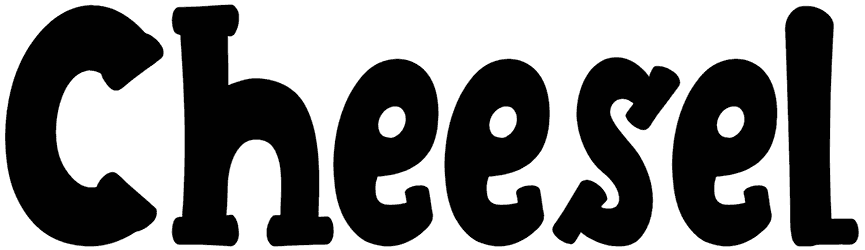
Cheesel Font
Let’s level up your design with the happy and comical face of today’s gift, named Cheesel. This cartoon font has a bold hand lettering style and would be an acute promotion for a lot of designs like banners, postcards, storybooks, and whatnot.
Certainly, this masterpiece is one of the freebie assets, with A-Z characters, accomplishing its job in bringing out a sweet mood to words. Pick a couple of other cheese fonts from our rich library to use alongside this one.